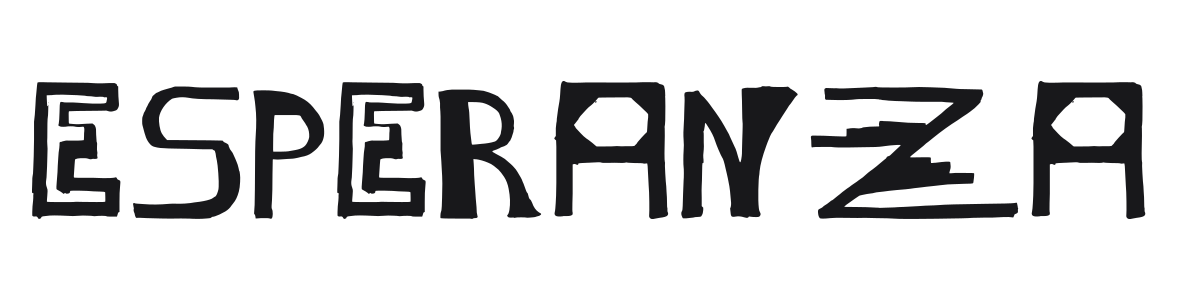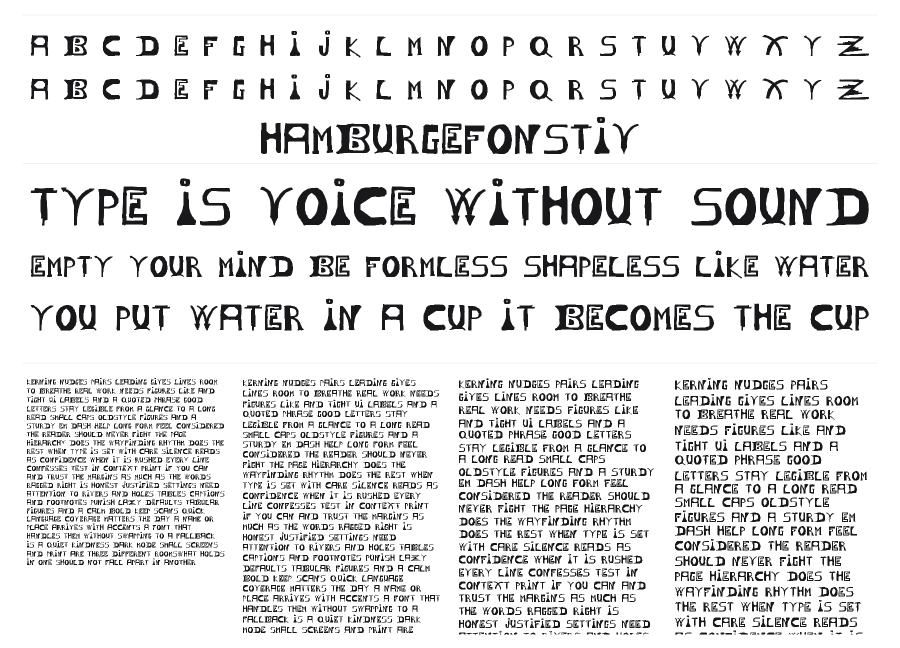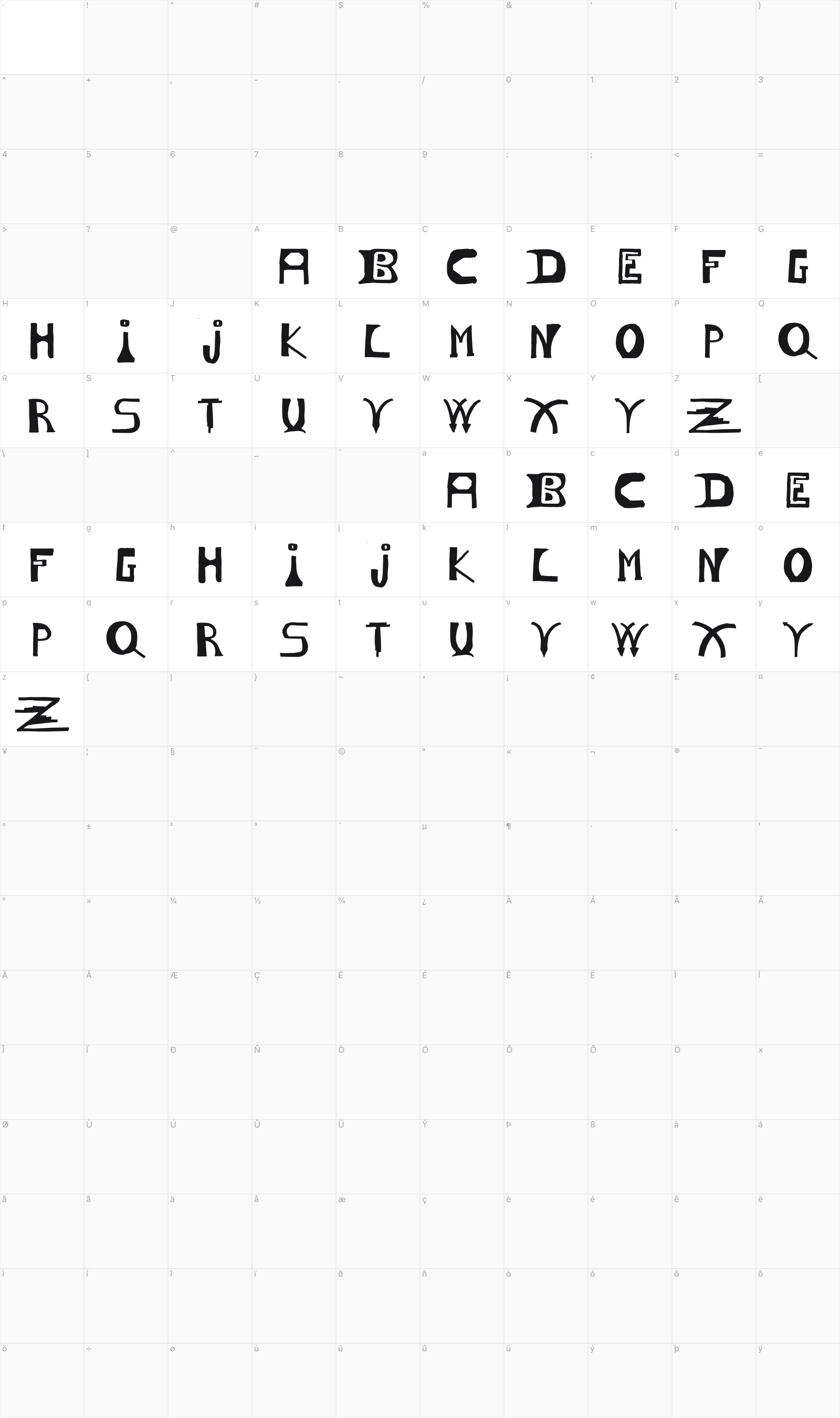
Esperanza
by Isabel Baum
Esperanza is a heavy hand-drawn display font with chunky, irregular characters that feel carved from wood or cut by hand. Every letter has its own quirky proportions, giving text set in it a lively, folk-art energy. It suits posters, packaging, and any project that needs warmth and handmade personality.